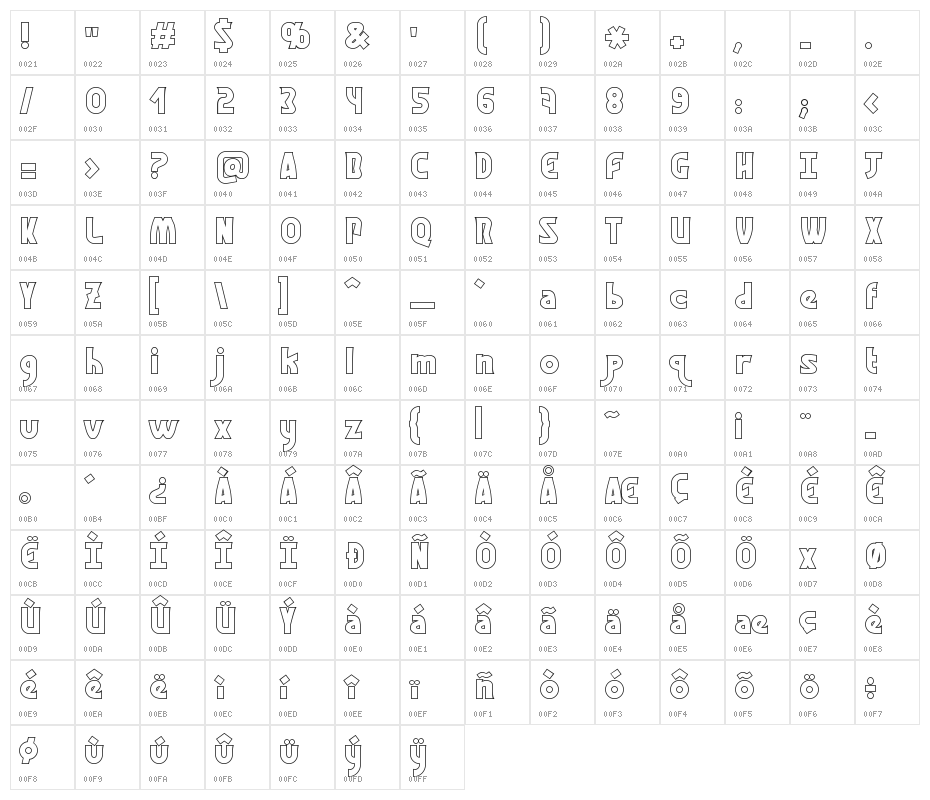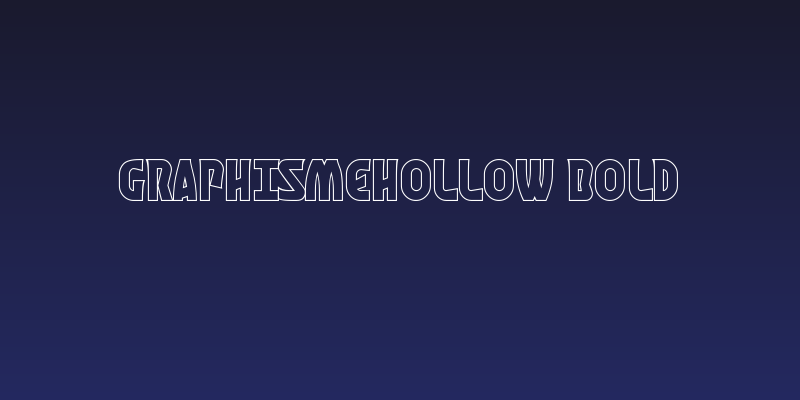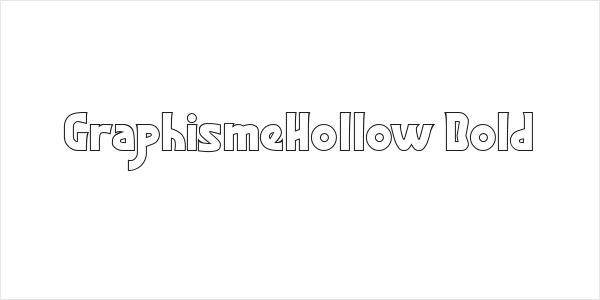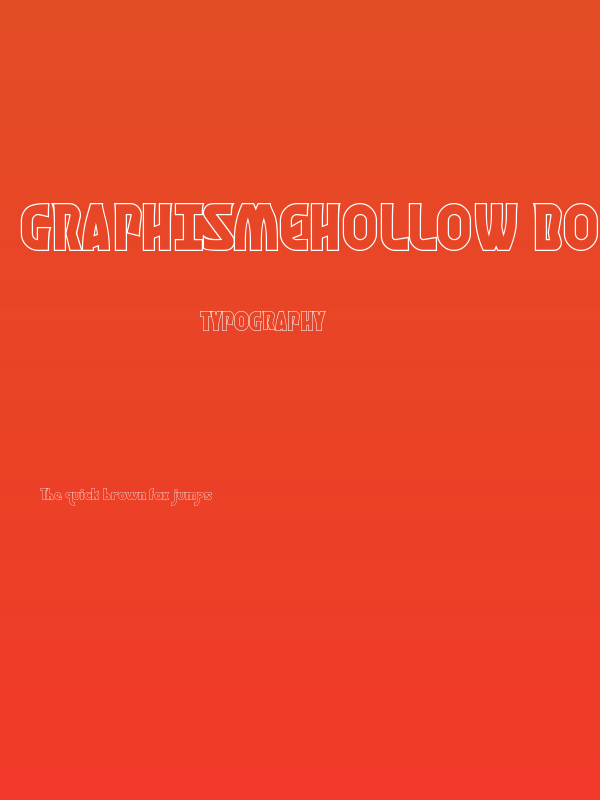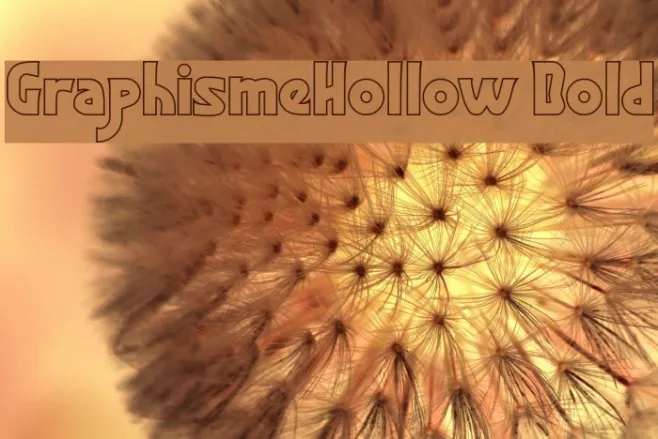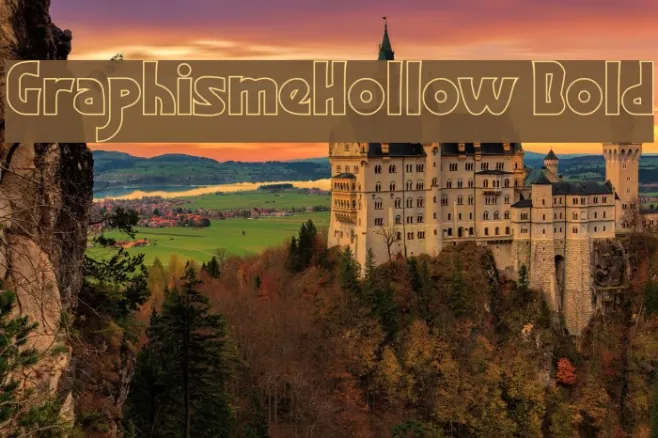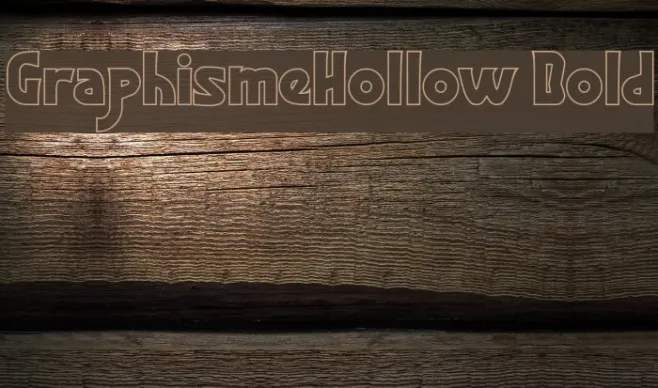
GraphismeHollow Bold Font
GraphismeHollow Bold Description
This font features a bold, hollow design that emphasizes its geometric and structured form. The uppercase and lowercase letters maintain a consistent width, creating a uniform appearance. The characters are outlined, giving them a three-dimensional effect that stands out on any background. The numbers and special characters follow the same hollow style, ensuring a cohesive look across all text elements. This font's unique style makes it ideal for eye-catching designs where the text needs to be both readable and visually striking.
| Proposed Projects | Ideal for posters, logos, headlines, and any design requiring a bold, standout text. |